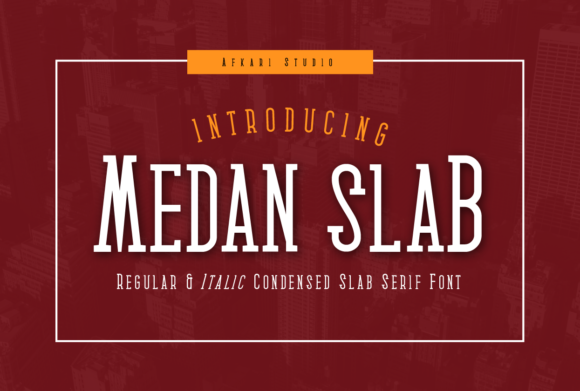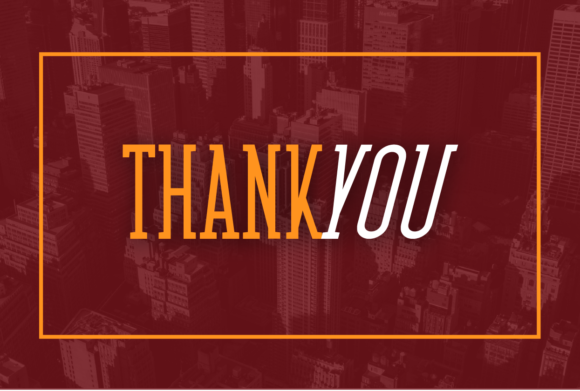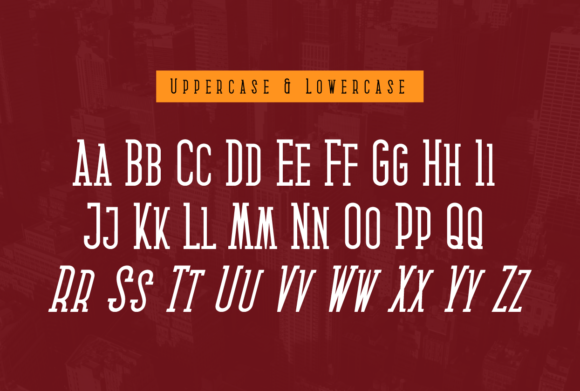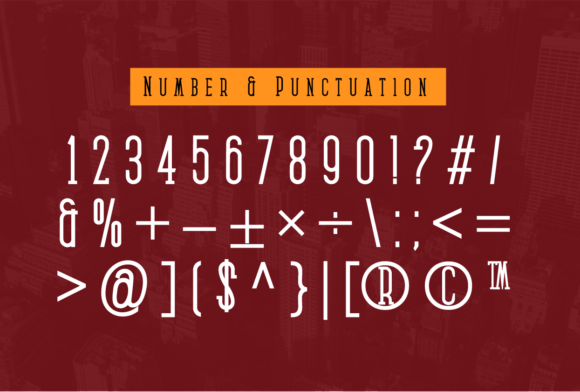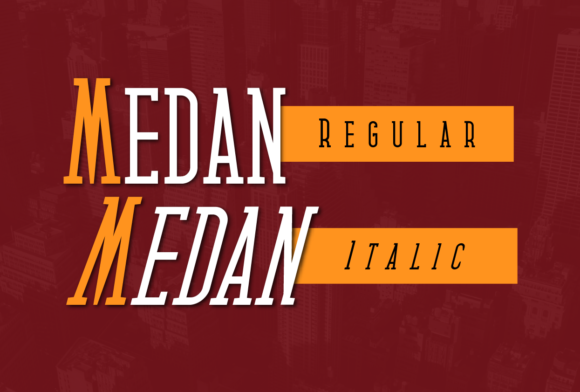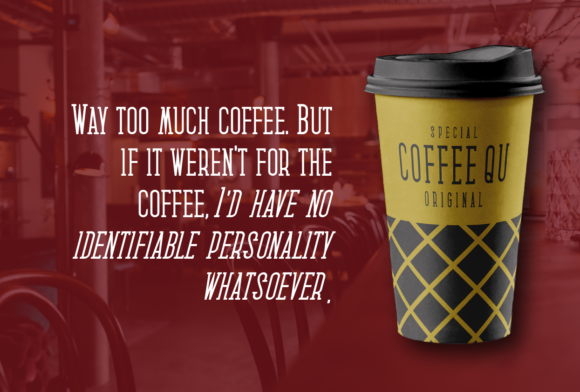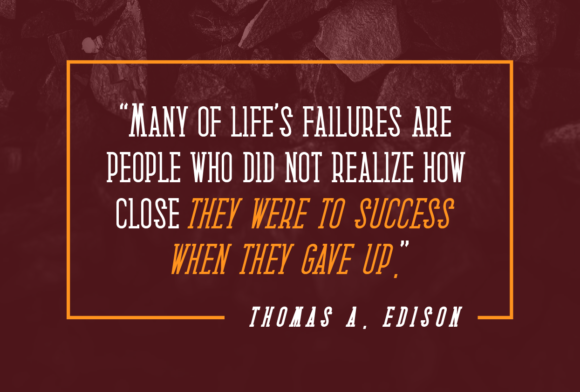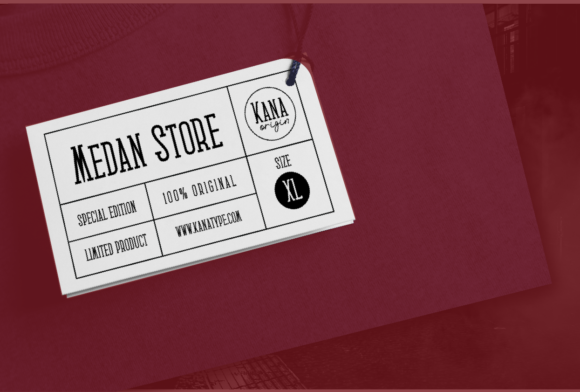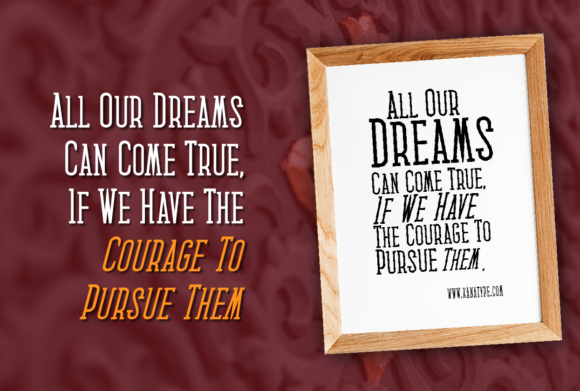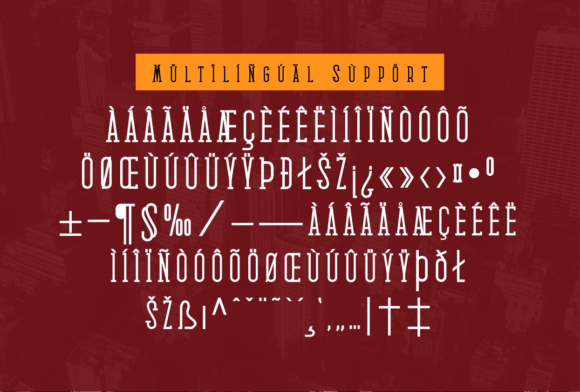
Medan
Medan: A Cool and Fun Slab Serif Font
Medan is a distinctive slab serif font that combines coolness with a fun aesthetic. This versatile typeface is designed to be easily matched to an incredibly large set of projects, making it a powerful tool for designers looking to make their creative ideas stand out.
Key Features of Medan
• Cool Design: Features a trendy and appealing appearance that resonates with modern design trends.
• Fun Aesthetic: Incorporates playful elements that add a lively touch to designs.
• Slab Serif Structure: Maintains the characteristic thick, rectangular serifs typical of slab serif fonts.
• Versatile Application: Easily matched to a wide range of projects across various contexts.
• Stand-Out Quality: Designed to elevate creative ideas and make them visually striking.
Ideal Uses for Medan
Medan’s unique characteristics make it particularly well-suited for:
• Branding and logo design for youthful or creative businesses
• Poster and advertisement layouts that need to grab attention
• Website headers and digital content aimed at a modern audience
• Packaging design for products targeting a fun-loving demographic
• Social media graphics and content that need to stand out in feeds
When incorporating Medan into your designs, consider the following tips:
• Use for both headlines and short blocks of text to showcase its cool and fun style
• Experiment with different sizes to highlight the font’s unique details
• Take advantage of its versatility across various themes and styles in your projects
Medan is an excellent choice for designers looking to add a cool and fun slab serif font to their typographic toolkit. Its ability to enhance various design projects makes it stand out in the world of typography. Whether you’re working on logo designs, creating layouts for advertising, or developing content that requires a touch of playfulness, Medan offers the perfect blend of coolness and fun.
Add Medan to your creative projects and explore how it can elevate your designs with its cool and fun style. From eye-catching headlines to engaging branding elements, this font provides the tools to create impactful and memorable typography that resonates with audiences seeking a modern and lively aesthetic. It’s versatile enough to be used in various contexts, from vintage-inspired designs with a contemporary twist to cute and friendly layouts that need an extra touch of coolness.
Whether you’re creating a magical and mysterious atmosphere or aiming for a more thoughtful and introspective mood in your designs, Medan can adapt to your needs. Its flexibility allows it to work well in both rustic, vintage-style projects and holiday-themed designs that require a fun update. For those looking to add a touch of nostalgia with a modern feel, this font can even complement vintage Christmas-inspired creations with a unique, cool twist.